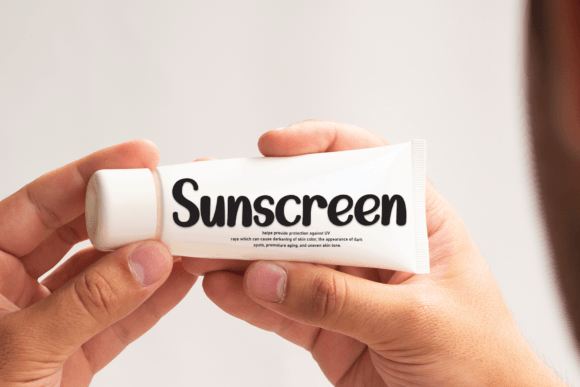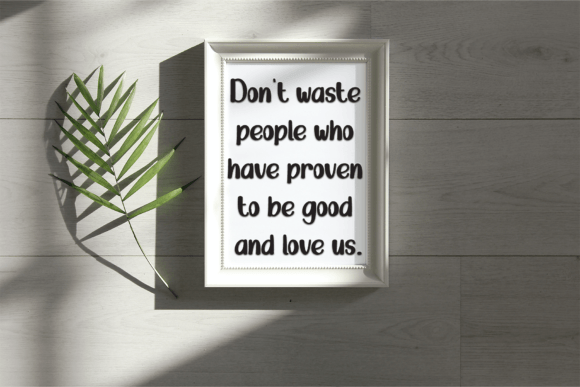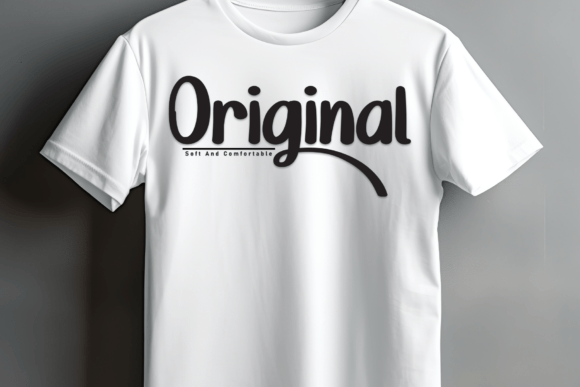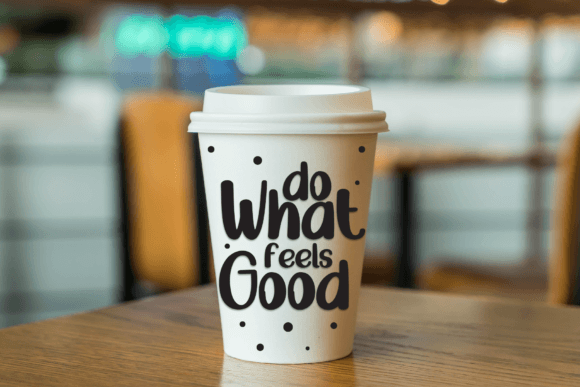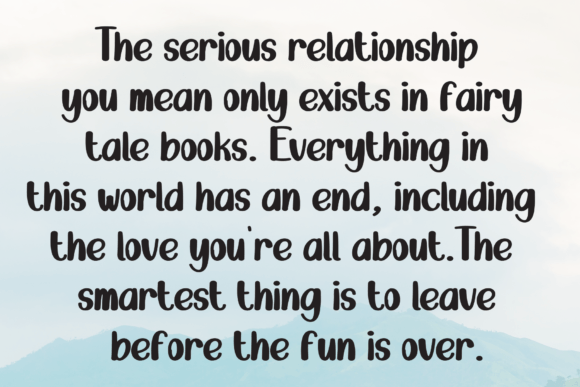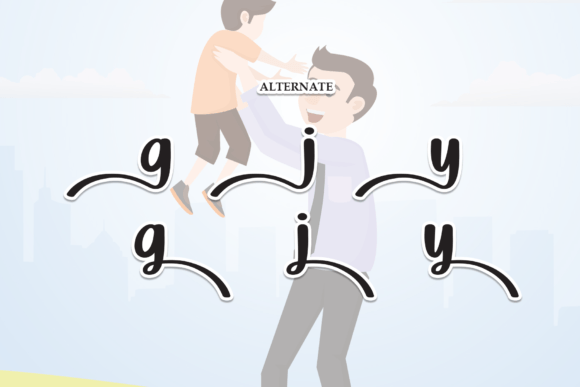
The Perfect Script for Your Next Design Project
Who among us hasn’t spent hours brainstorming ideas for the perfect wedding invitation or birthday card? The pressure to create something truly special can be overwhelming, but what if we told you there’s a secret ingredient to make your designs truly stand out? Meet the Dadlygood Font, a sweet and friendly handwritten display font that’s guaranteed to add a touch of whimsy to any project.
This charming font is more than just a pretty face – it’s a valuable tool for designers looking to add a fun and playful twist to their work. With its cute and carefree vibe, the Dadlygood Font is perfect for writing wedding invitations, cards, or any other design that needs a little extra personality. Whether you’re a seasoned pro or a design newbie, this font is sure to become your new go-to for adding a dash of dadlygood fun to your projects.
Dadlygood Font Key Features
- Unique Characteristics: The Dadlygood Font features a unique blend of modern and vintage elements, with intricate details and subtle texture, giving it a distinctive look.
Dadlygood Font Review
I recently had the chance to work with the Dadlygood Font, and I’m excited to share my honest review.
- ✨ The font is playful and fun, making it perfect for creating a lighthearted and approachable atmosphere.
- ✨ The Dadlygood Font is highly legible, even at smaller font sizes, making it suitable for body text.
- ✨ The font comes in a variety of weights and styles, giving designers plenty of options to work with.
- ⚠️ The font may not be suitable for formal or professional projects, as it has a more casual tone.
- ⚠️ Some users may find the font’s playfulness overwhelming or distracting, especially in longer blocks of text.
- ⚠️ The font’s versatility can make it difficult to find the perfect pairing with other fonts.
The Dadlygood Font is a unique and engaging font that can add a touch of personality to your designs. While it may not be suitable for every project, it’s a great option for designers looking to create a fun and approachable atmosphere.
Dadlygood Font: A Practical Application Guide
Tips and Best Practices
To get the most out of the Dadlygood Font, use it in moderation and in combination with other design elements. Experiment with different font sizes and colors to create visual interest. Avoid overusing the font, as it can become overwhelming. Use the font in a way that complements the overall design and message.
The Dadlygood Font is ideal for use in a variety of design projects, including:
- Invitations and event announcements
- Branding and logo design
- Marketing materials and brochures
- Presentations and reports